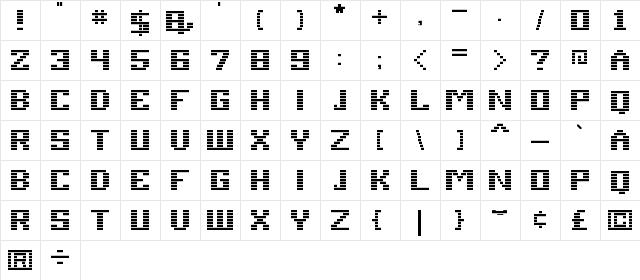
Esper Regular Font Preview
Esper Regular
| Designer | nmorse |
Design Context for Esper Typeface
Esper takes a measured approach to typography — its balanced proportions and neutral character make it a reliable workhorse for both digital and print work.